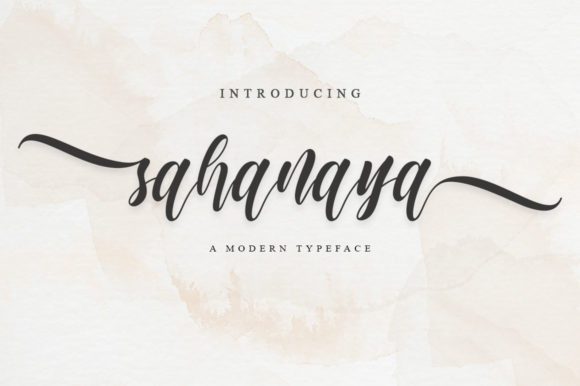
**Introducing Sahanaya Script: The Font That Will Ignite Your Creativity**
Step into a world of enchantment and grace with Sahanaya Script, a captivating handwritten font that dances across your screen with effortless elegance. Its delicate strokes and charming curves evoke the artistry of a master calligrapher, inviting you to add a touch of timeless beauty to every project.
Specially crafted for YouTube banners, Sahanaya Script empowers you to create eye-catching visuals that elevate your channel's presence. Its versatility extends far beyond the digital realm, making it a perfect choice for branding, invitations, social media posts, and any design that calls for a touch of whimsy and sophistication.
With Sahanaya Script, the possibilities are endless. Imagine your YouTube banners adorned with captivating headlines that draw viewers in, leaving an unforgettable impression. Craft alluring invitations that hint at the joy and elegance of your special event. Make your social media posts shine with a touch of timeless charm, attracting followers and sparking conversations.
**Unleash Your Inner Artist**
Sahanaya Script is meticulously designed to inspire your creativity and unleash your inner artist. Its enchanting characters flow seamlessly, inviting you to explore the depths of your imagination. Whether you're designing a stunning logo, crafting a heartwarming letter, or creating a captivating social media post, Sahanaya Script empowers you to express yourself with confidence and flair.
**Effortless Elegance with PUA Encoding**
Effortless elegance is at the heart of Sahanaya Script, made possible by its PUA encoding. This innovative technology allows you to access the full spectrum of glyphs and swashes with ease, giving you complete control over your designs. No longer will you be limited by a font's default characters; with Sahanaya Script, the possibilities are limitless.
**Join the Sahanaya Script Revolution**
Embrace the power of handwritten beauty and elevate your creations with Sahanaya Script. Its timeless charm and versatility make it the perfect choice for designers, creators, and anyone who appreciates the art of exquisite typography. Let Sahanaya Script guide you on a journey of creativity and self-expression.